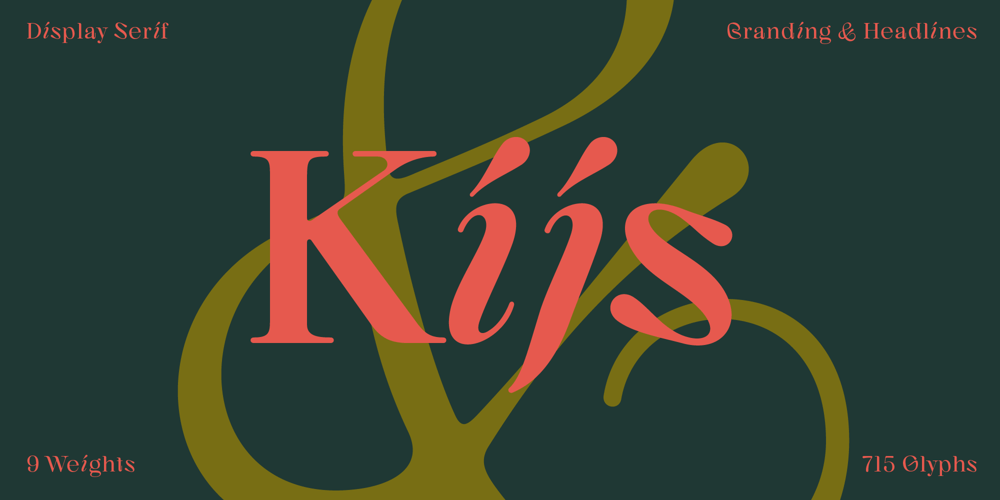
Kijs Display Font Family was designed by Saskia Ketz and published by MMarch NY. Kijs Display contains 9 styles and family package options. Great for branding and headlines, Kijs is a serif type with a twist. Kijs is a “nature font” that communicates earthiness with a free spirit and personality.Kijs has slightly overfilled joints and corners for a natural print look, rounded terminals, and many alternate letters for design variation and for creating a truly organic feel. The thinner font weights speak to natural elegance and sophistication, and bolder weights reveal a concept of flow and organic matter.